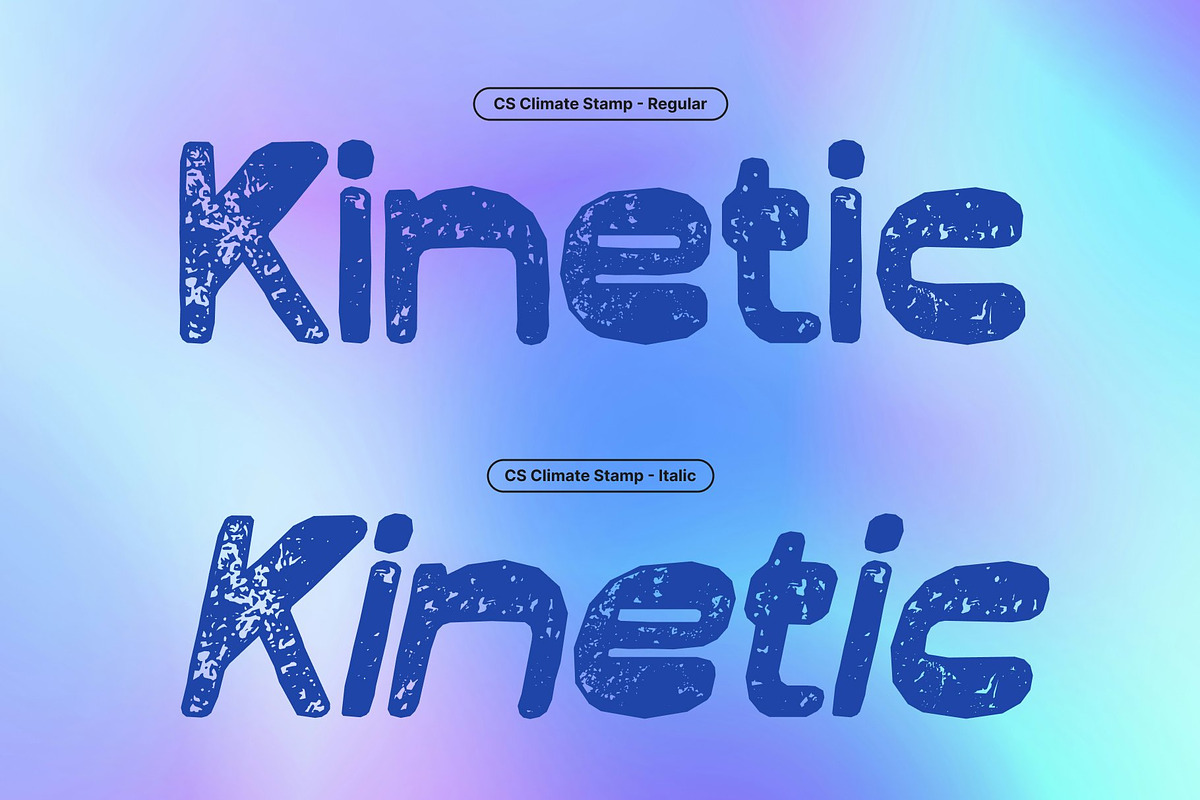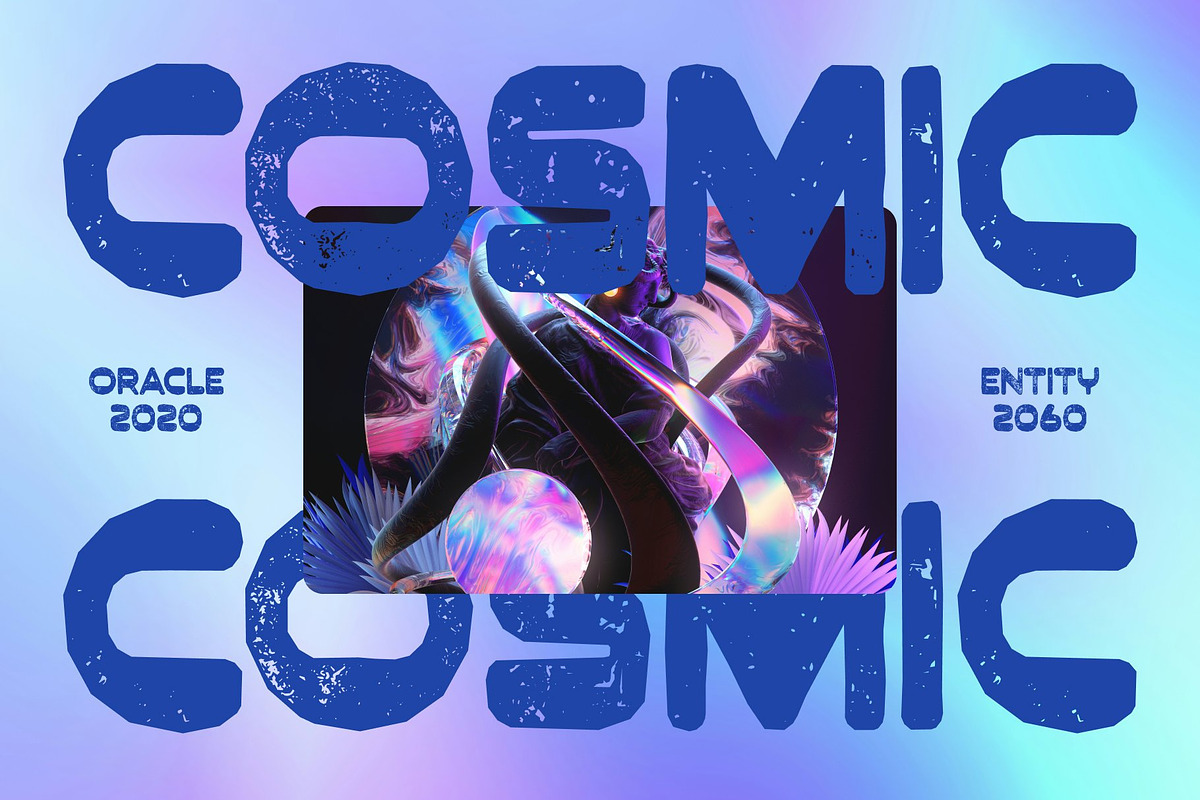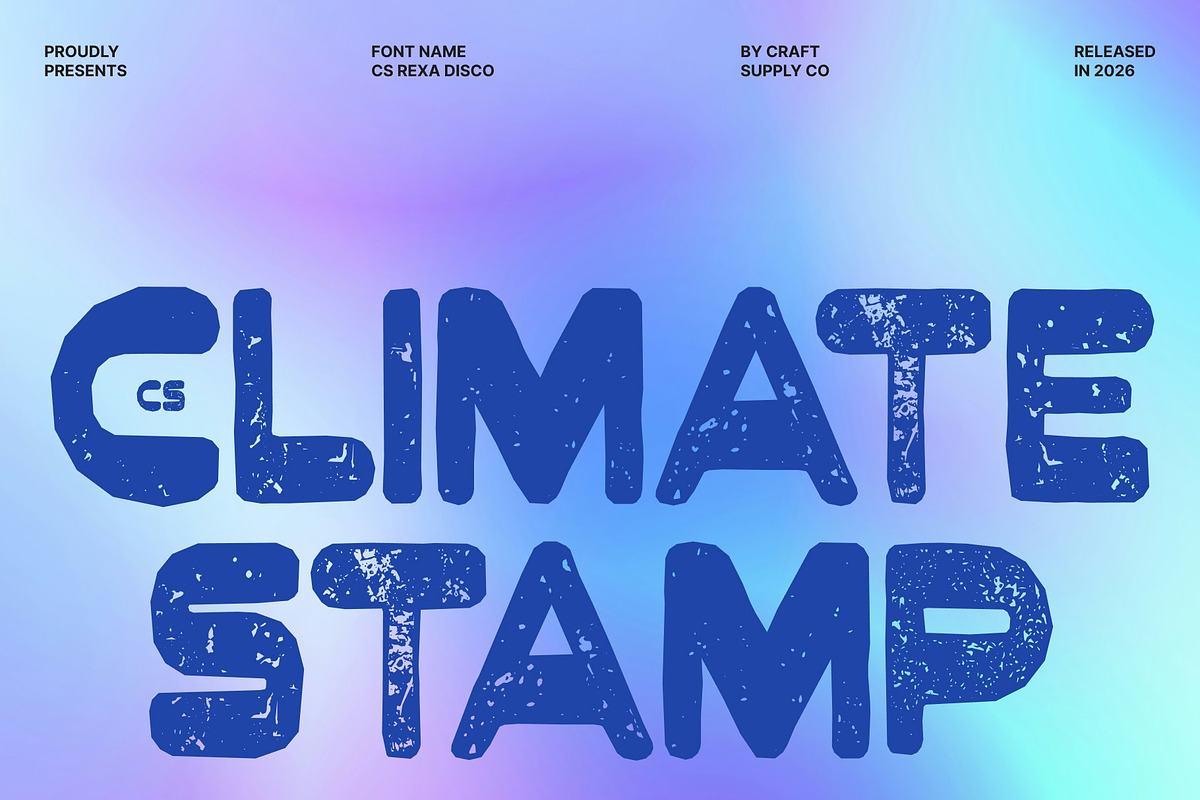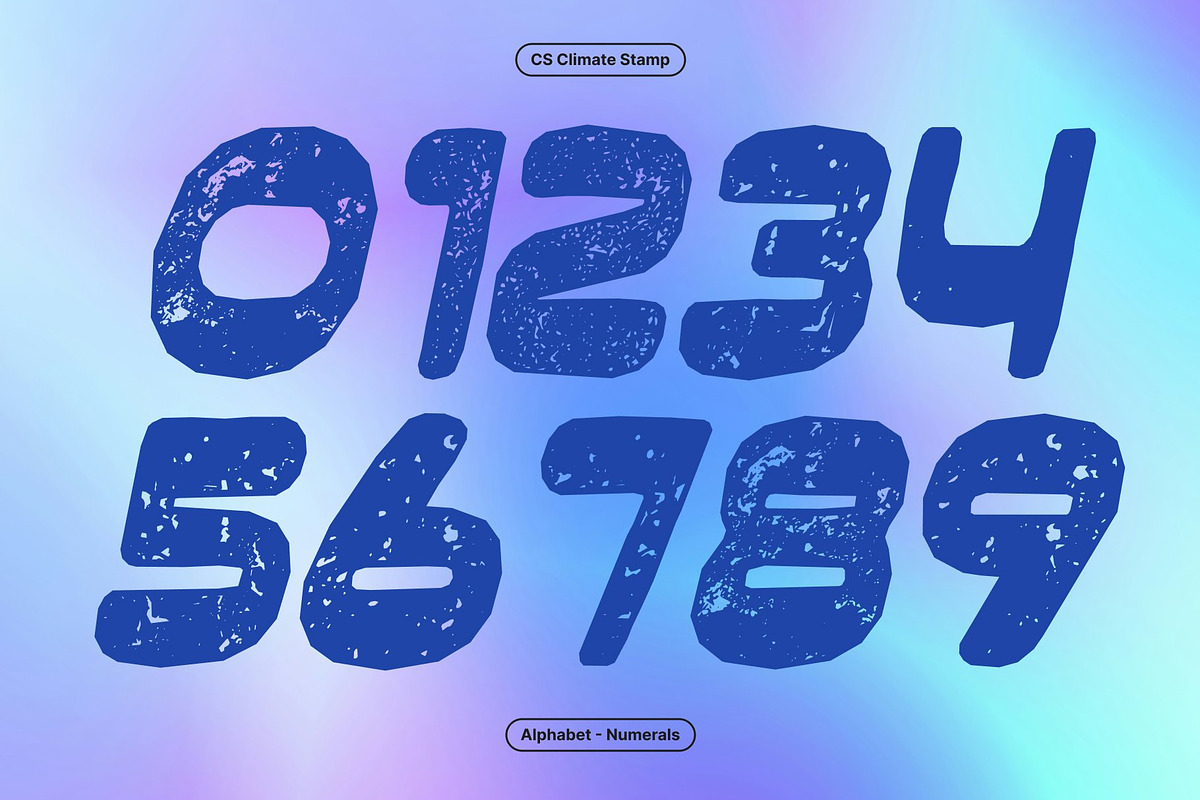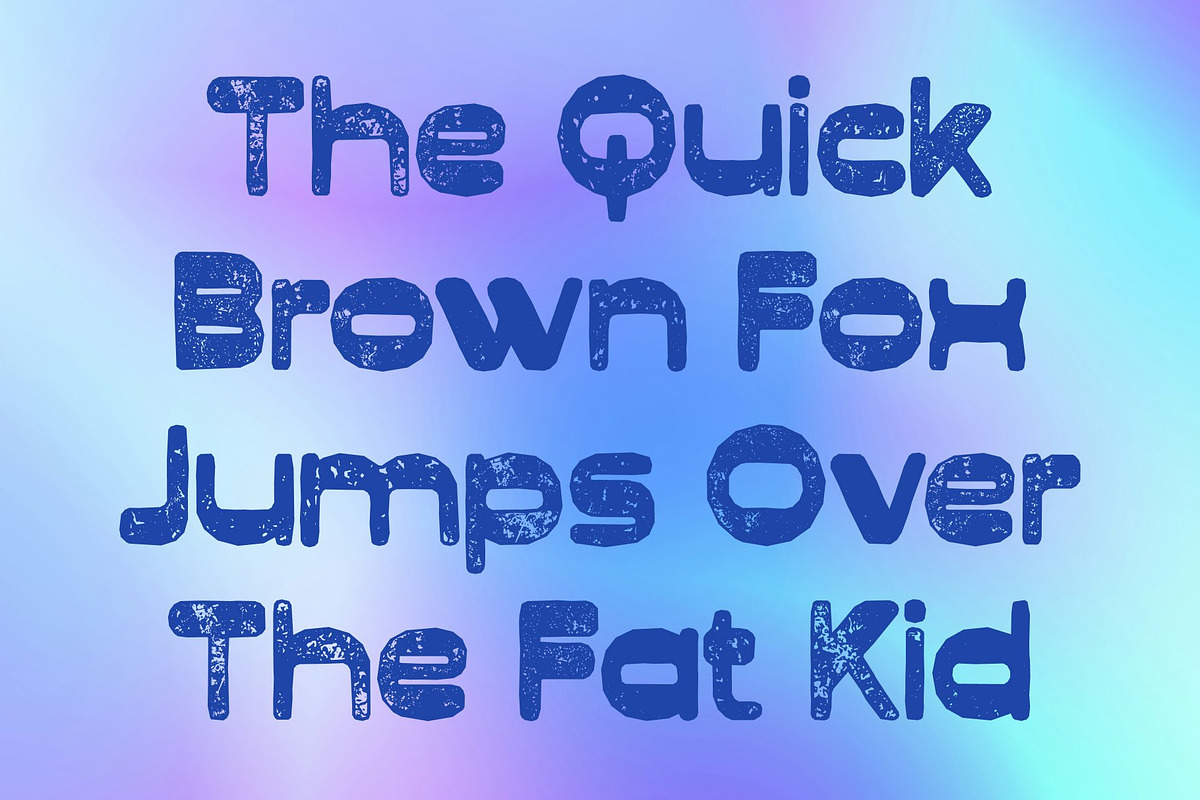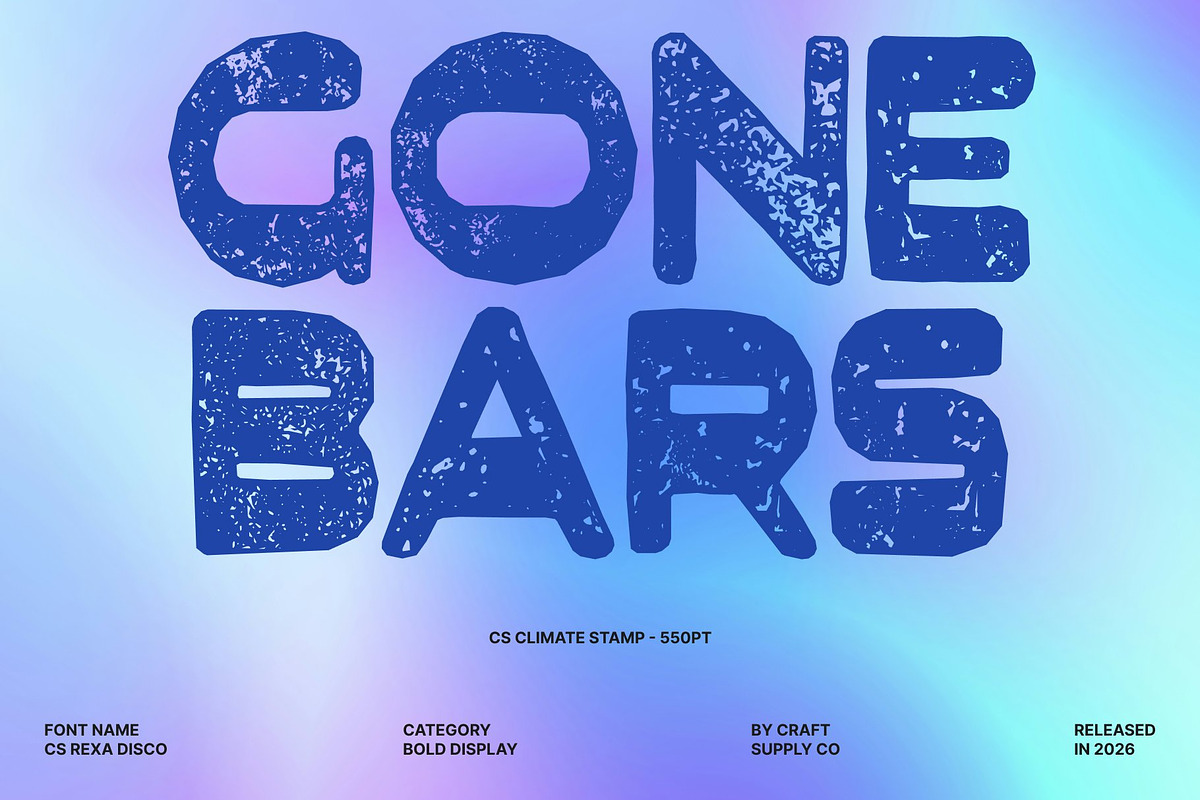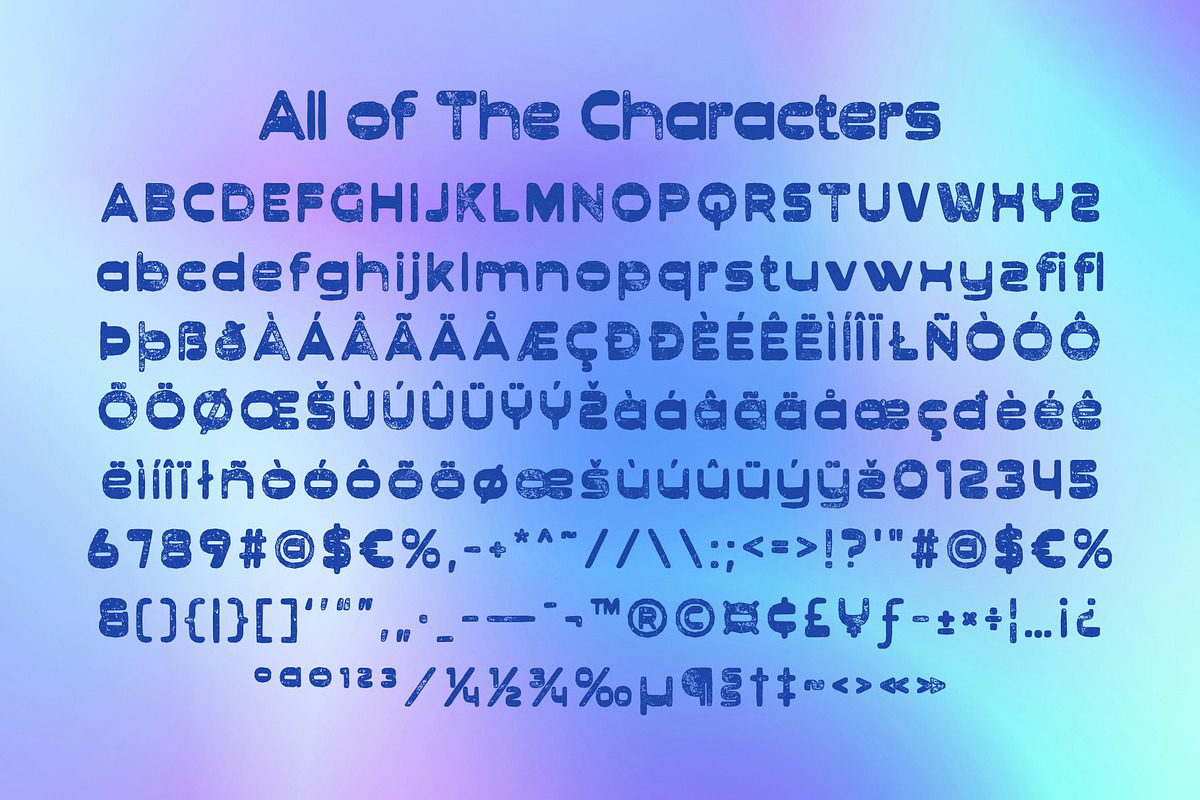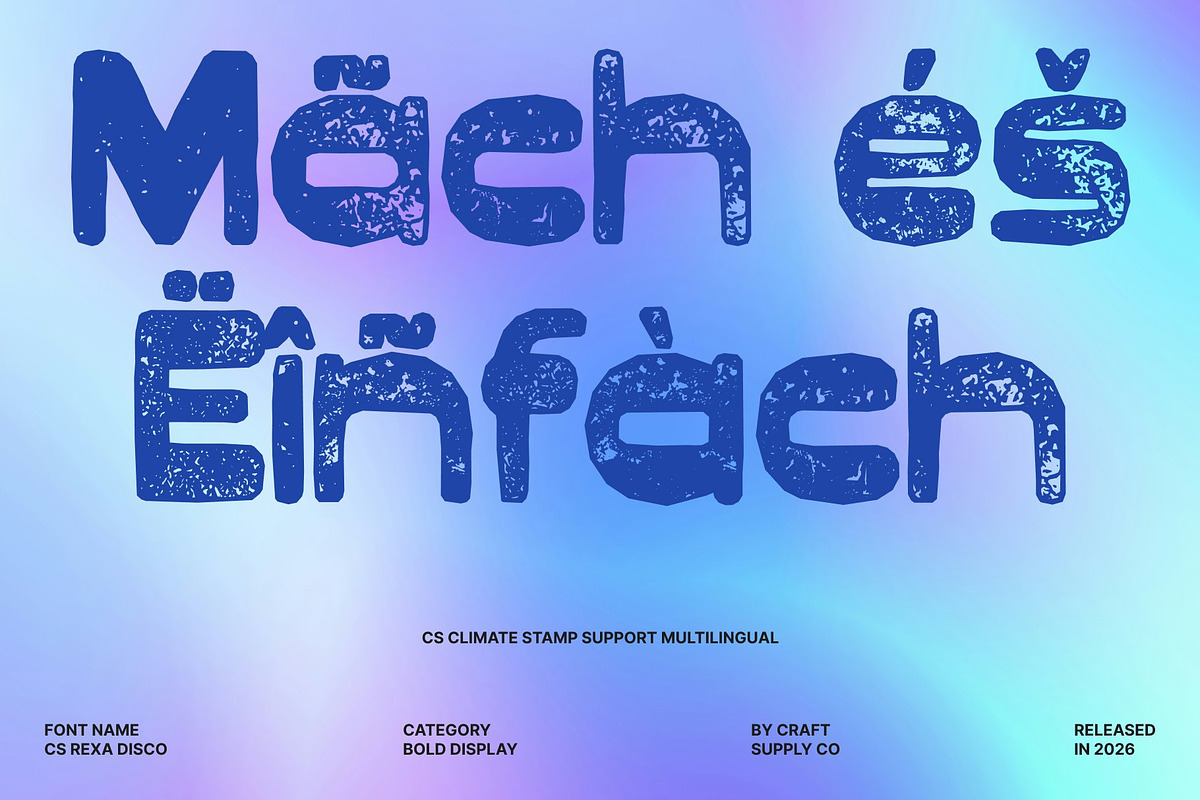
CS Climate Stamp
CS Climate Stamp – Reverse Contrast Boldness with Vintage Texture
Modern Sans Serif with Distinctive Reverse Contrast This is a bold sans serif font that stands out with its unique reverse contrast design, where horizontal strokes carry more weight than vertical ones. This unconventional structure creates a striking and memorable visual rhythm. Enhanced with a stamp effect, the font gains a textured, slightly distressed finish that adds depth and a handcrafted, vintage-inspired character.
Rounded Modular Forms with Contemporary Appeal Built with rounded edges and modular shapes, this font balances bold geometry with smooth, approachable curves. This combination softens its strong presence, resulting in a harmonious and modern aesthetic. The stamp texture introduces subtle ink variations, enriching the clean forms with an organic, tactile quality.
Inspired by Vintage Design, Refined for Today Drawing from mid-century and industrial design influences, this font blends nostalgic elements with contemporary clarity. The reverse contrast nods to classic typography traditions, while the textured stamp effect enhances its retro feel without compromising its modern functionality.
Perfect for Branding, Editorial, and Creative Campaigns Ideal for logos, packaging, posters, editorial layouts, and visual campaigns, delivers bold impact with refined style. Its fusion of reverse contrast structure, rounded modular design, and vintage stamp texture creates a distinctive typographic voice modern, expressive, and visually engaging.
CS Climate Stamp Regular
CS Climate Stamp Italic